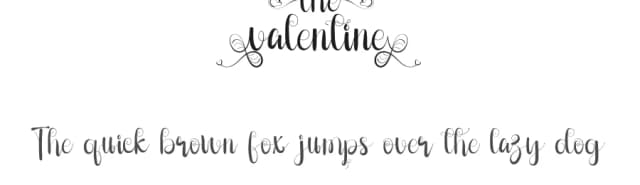
About Great Wishes Font
Great Wishes Specifications
| Font Family | Great Wishes |
| Full Name | GreatWishes |
| Glyph Count | 211 glyphs |
| PostScript Name | GreatWishes |
| Designer | Donis Miftahudin |
Great Wishes ships with 1 OpenType feature you can switch on in apps that support them (Illustrator, InDesign, Affinity, Figma, CSS font-feature-settings).
Great Wishes supports 209 languages.
Great Wishes Font is a script font that shines as a display or heading face. Pair it with a clean sans-serif or serif font for body text β the contrast creates a clear hierarchy while the two styles stay balanced and easy to read.
Great Wishes Font
by Yumna Family